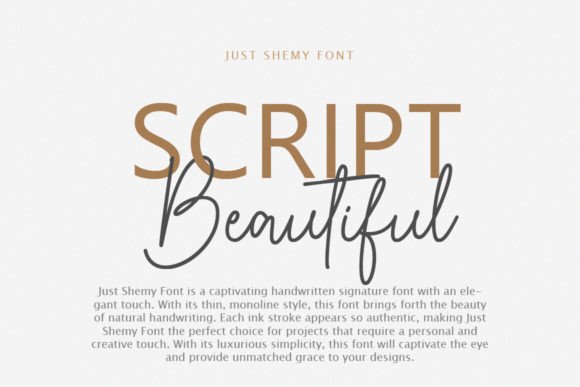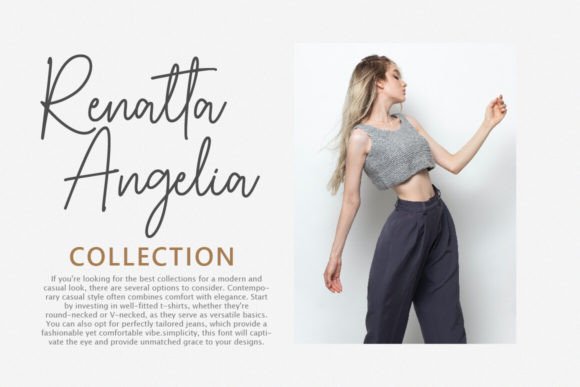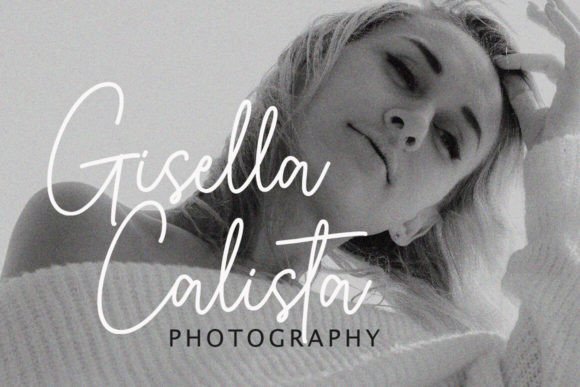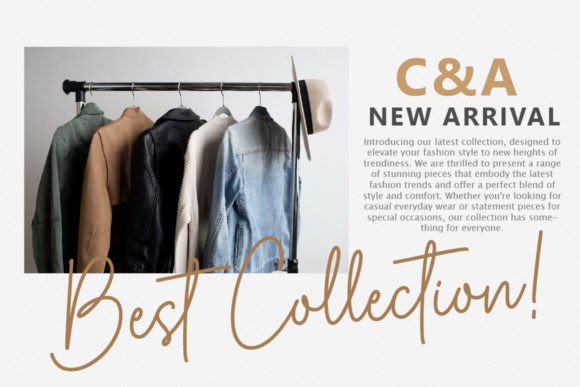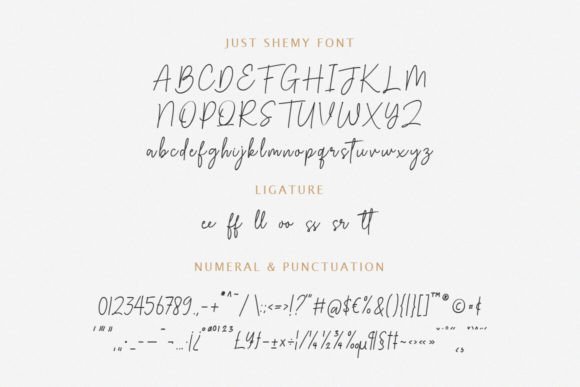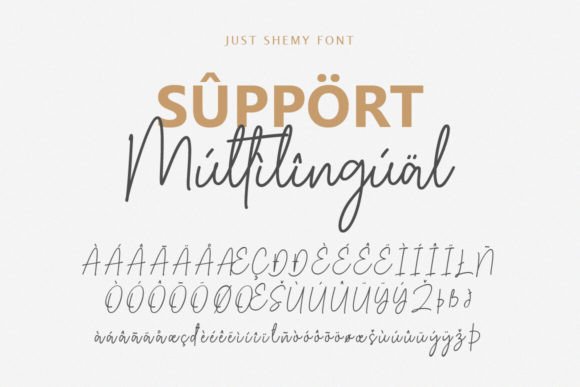
Introduction to Just Shemy Font
Just Shemy is a captivating handwritten signature font with an elegant touch.
With its thin, monoline style, this font brings forth the beauty of natural handwriting Each ink stroke appears so authentic, making Just Shemy Font the perfect choice for projects that require a personal and creative touch.